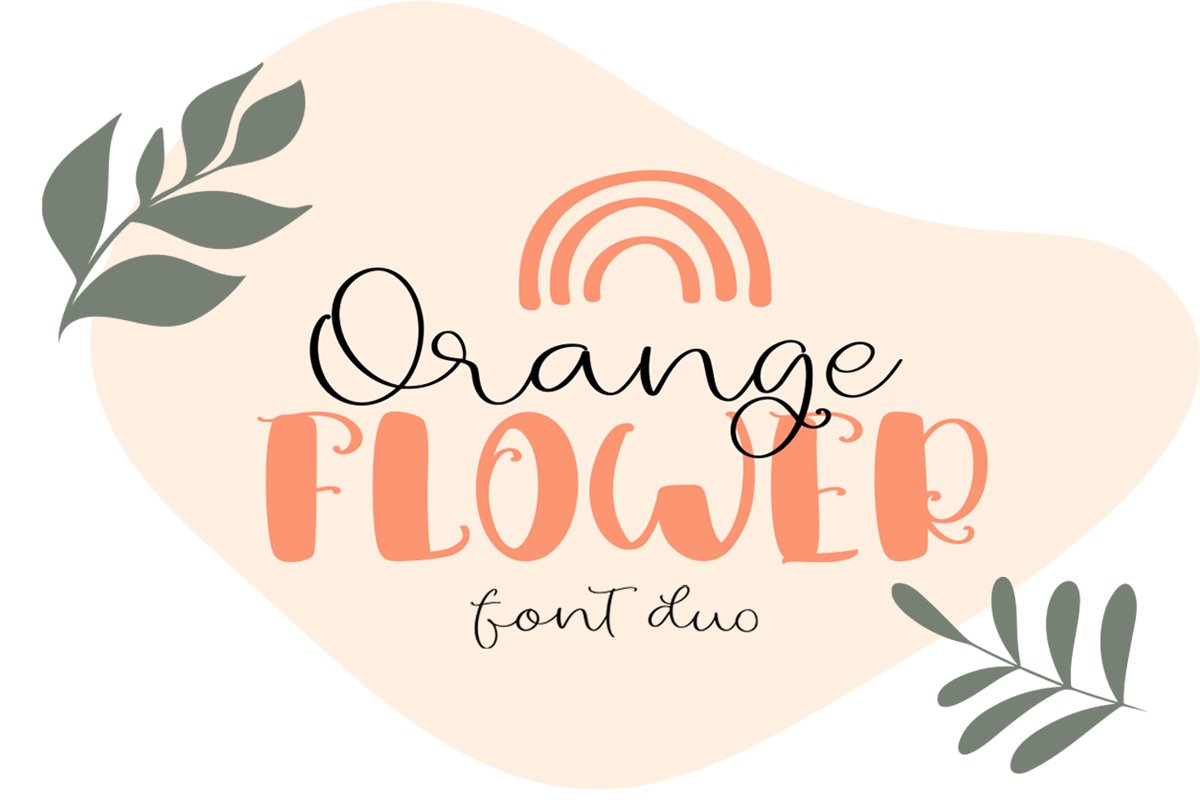
Orange Flower Font Duo - it's a funny font duo
Orange Flower.otf - all uppercase font, numbers, punctuation
Orange Flower Script.otf - standart and alternate uppercase, lowercase, numbers, punctuation